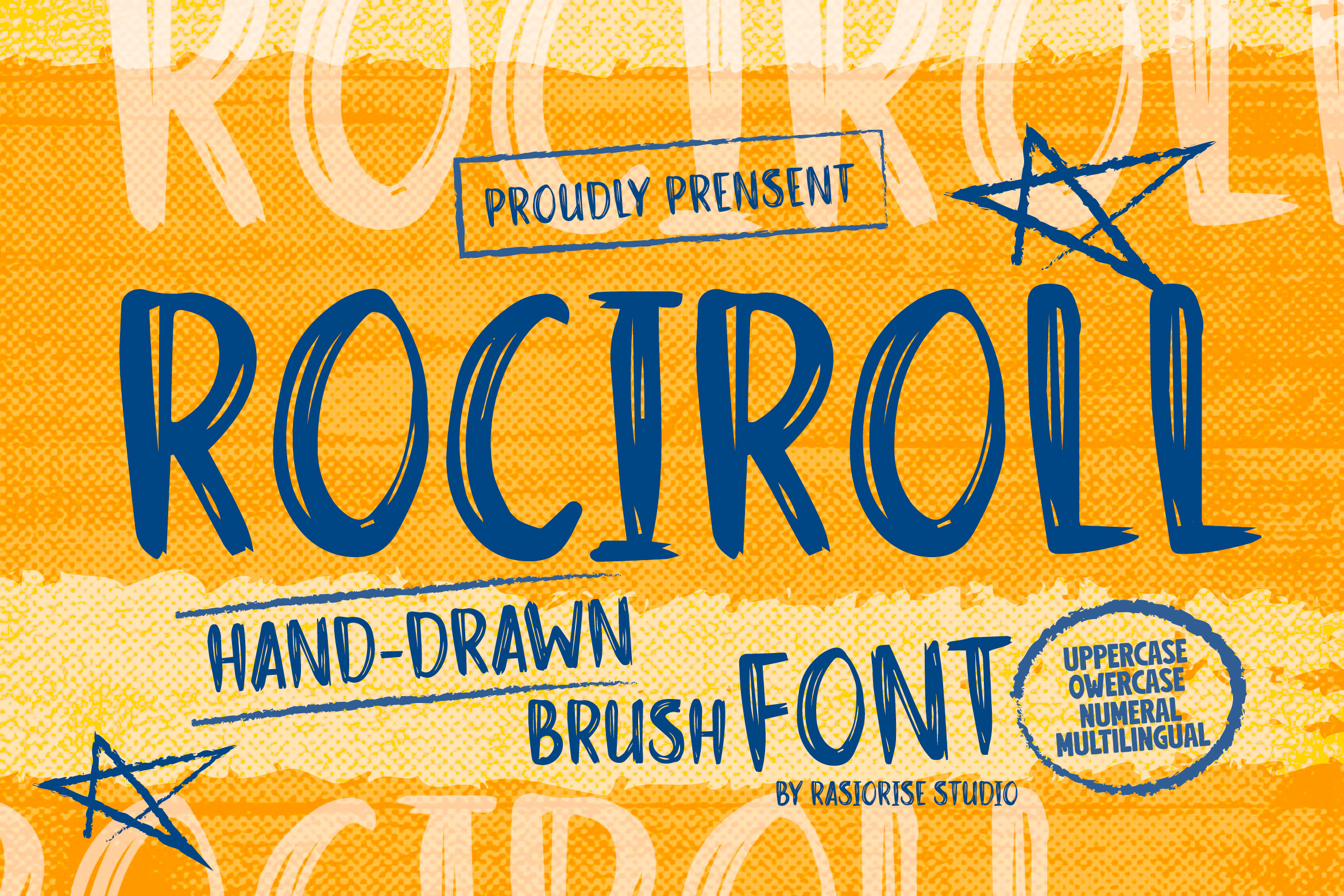
Rociroll a Rough Brush Font
Hello Everyone! Rociroll has been released for those of you who are looking for a Handdrawn Brush freestyle font, The font is inspired by the Distressed Brush hand drawing Free Style with a few combine to turn them into a bit of a playful and raw style. Unleash your creativity with Rociroll - Handdrawn Brush Font, perfect for adding a playful and raw distressed style to any project!
Rociroll Font very suitable for Logotype, Book Cover, Weeding Invitation, Gift Card, Gretting Card, Poster, Merchandise, Packaging Label, Badge/Emblem Logo and much more.